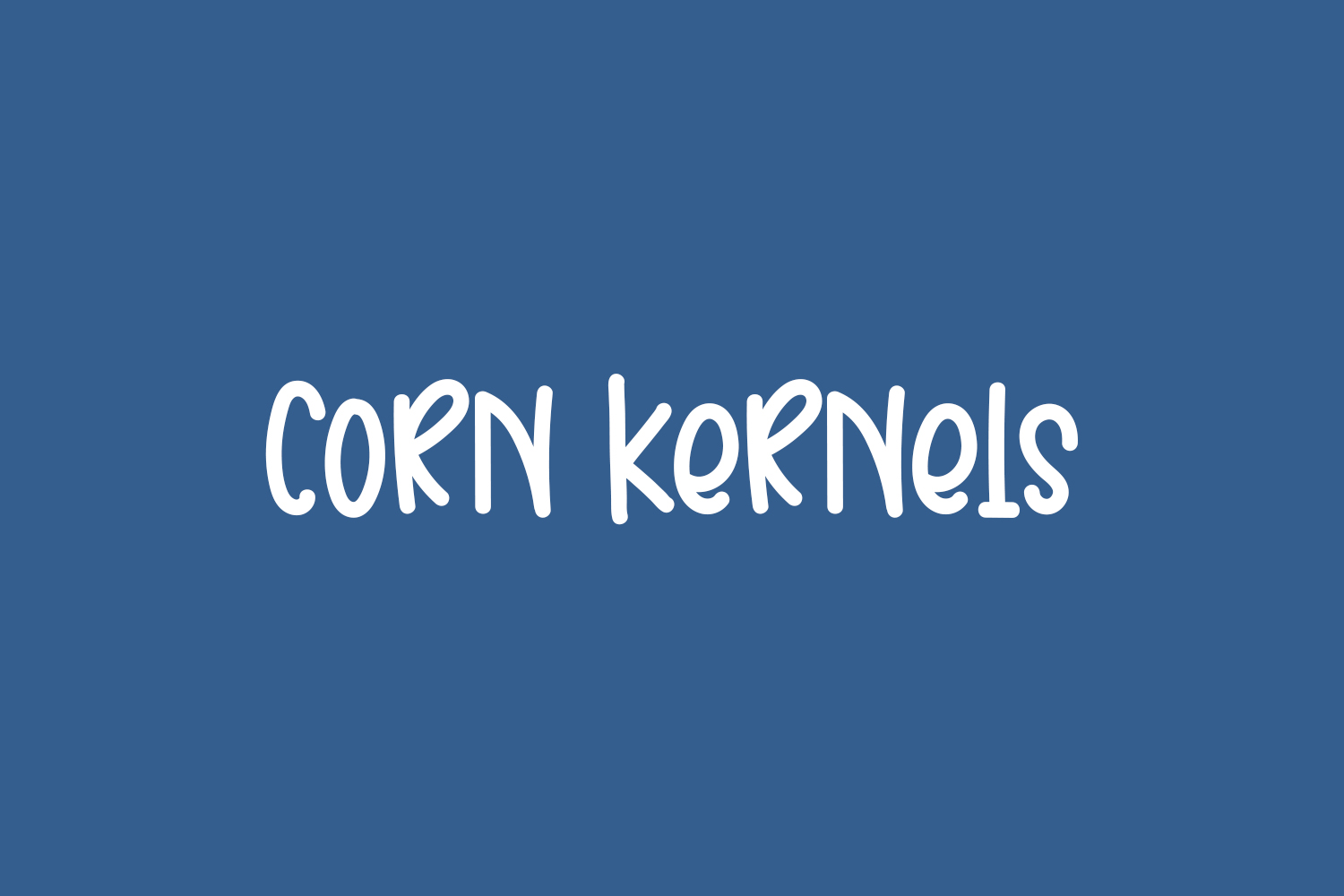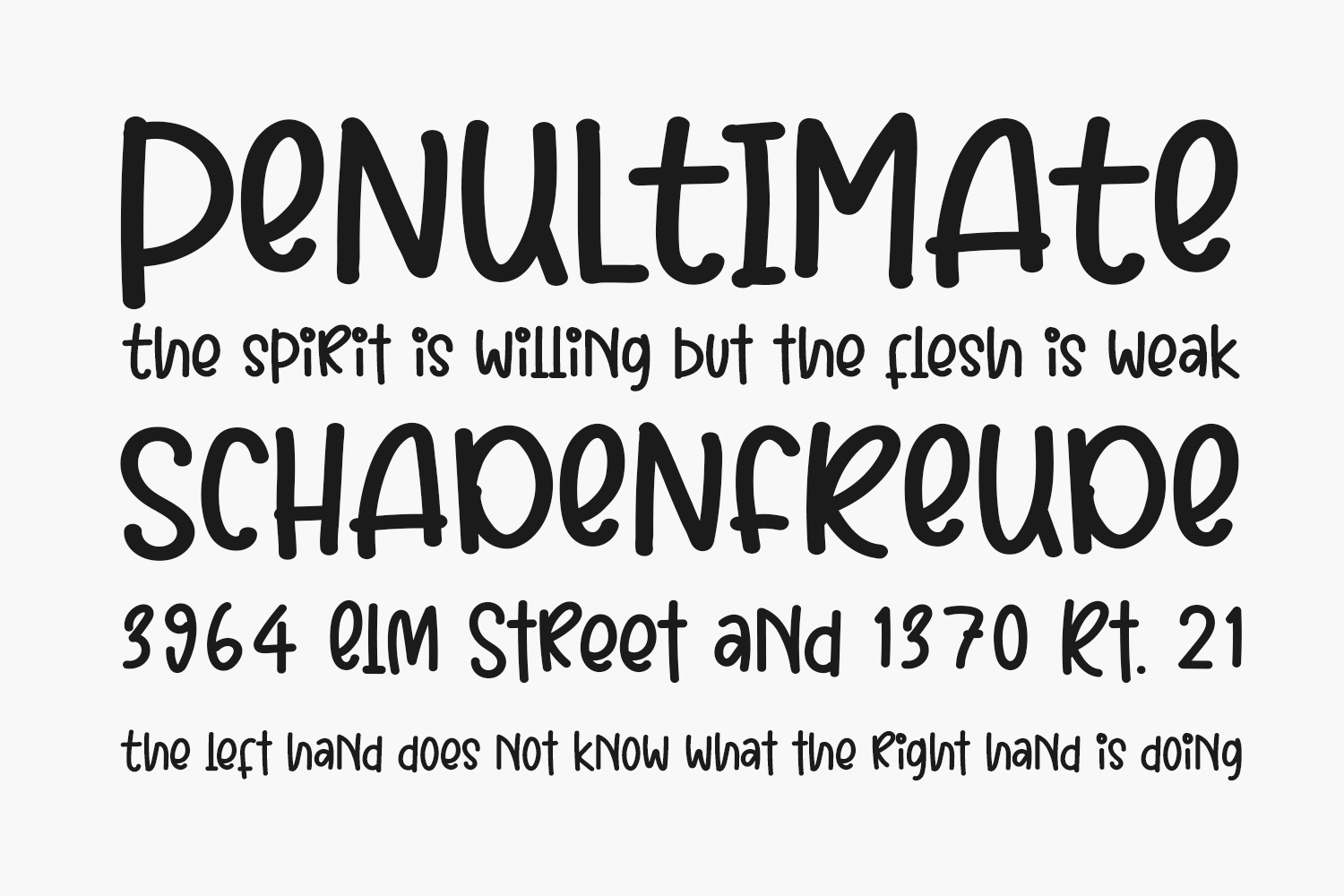
Corn Kernels Free Font is a modern and all round display font. Whether you’re looking for fonts for Instagram or calligraphy scripts for DIY projects, this font will turn any creative idea into a true piece of art. Corn Kernels Free Font was designed by Inermedia Studio and is free for personal use only. Please purchase the full version for commercial use.